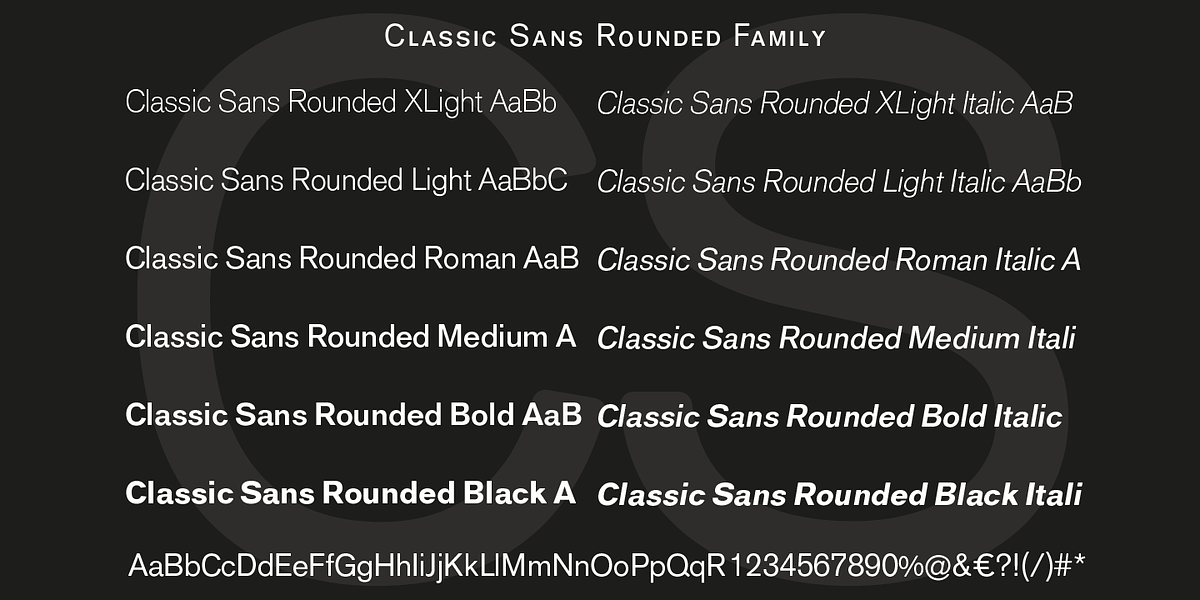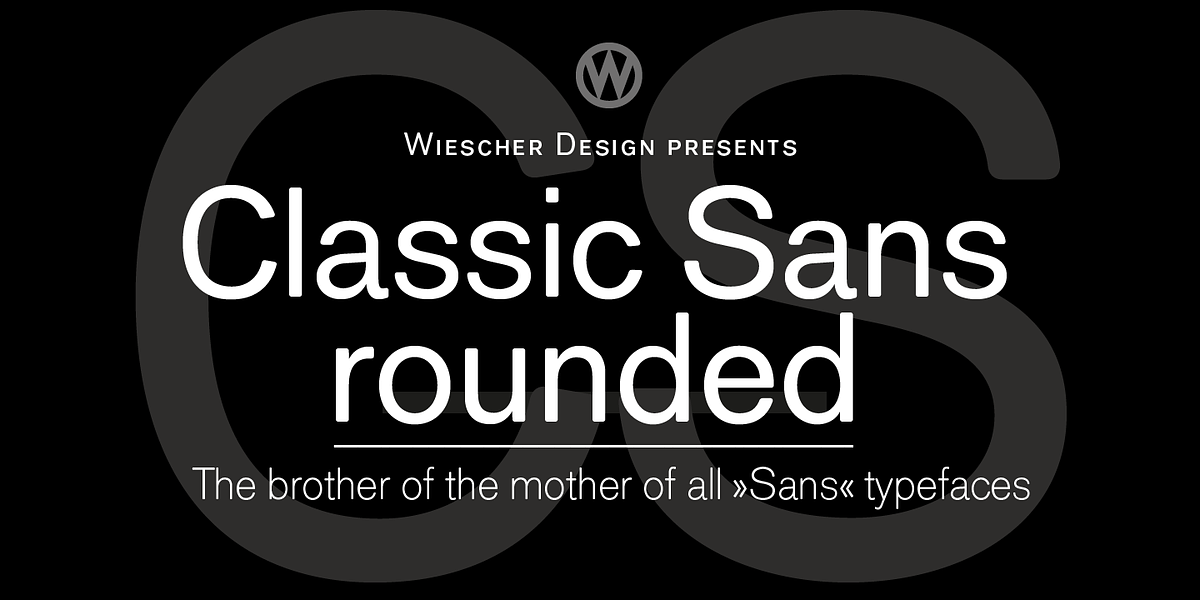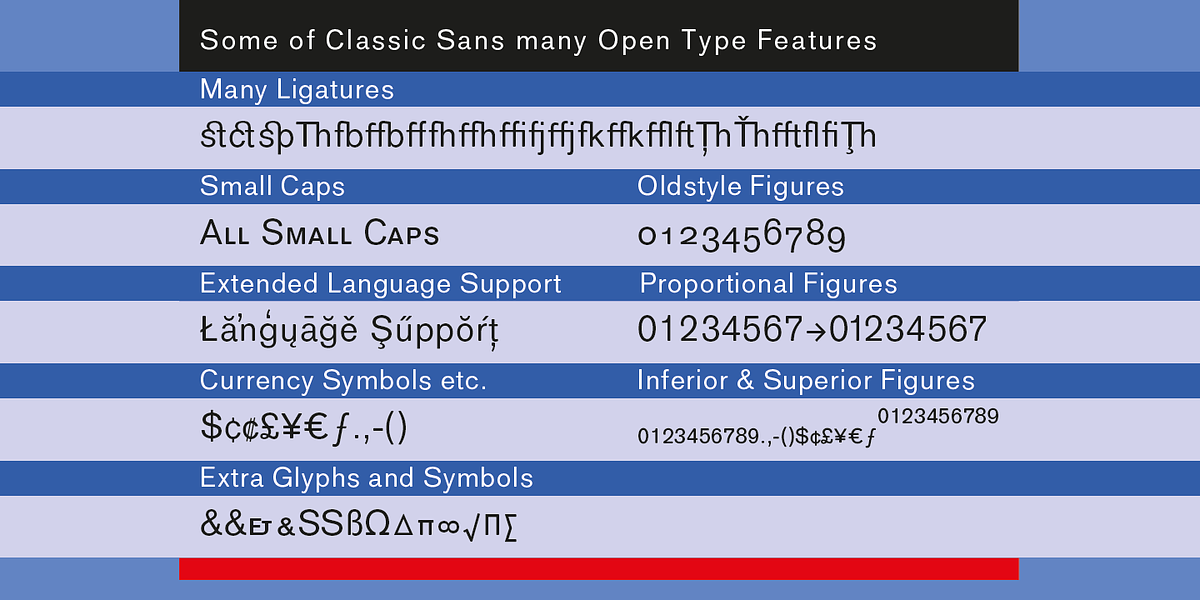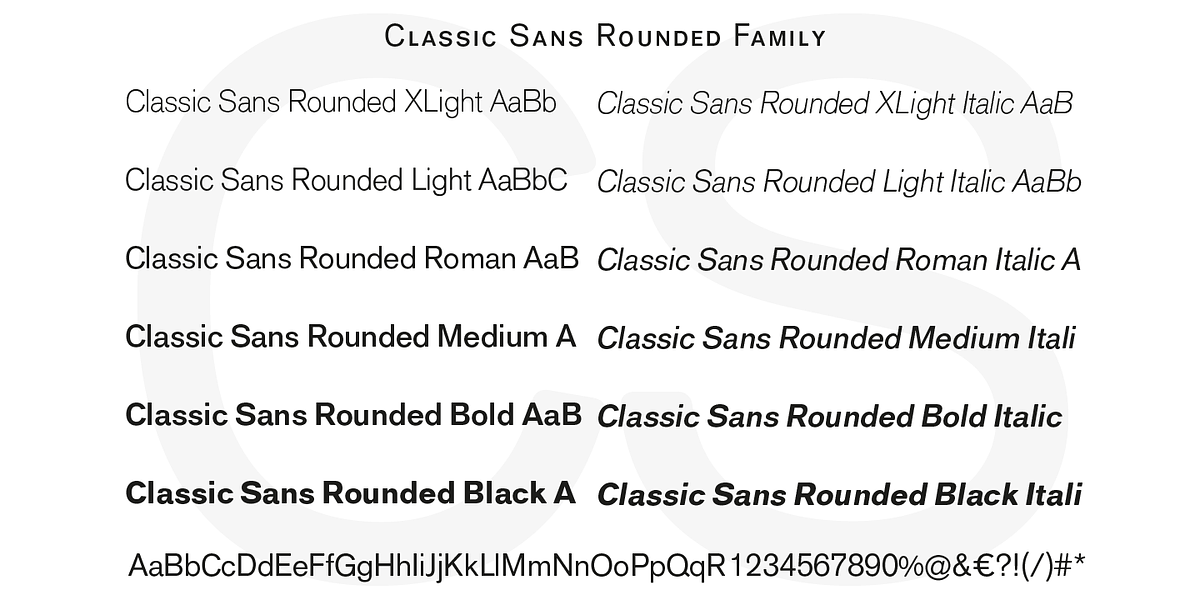
Classic Sans Rounded
Classic Sans Rounded is a soft grotesque sans serif font designed to provide a more approachable and friendly feel compared to traditional sans serifs. The font family includes a variety of weights, from XLight to Black, as well as italic versions for each weight. This allows for versatility in different design applications, making it suitable for both body copy and display purposes.